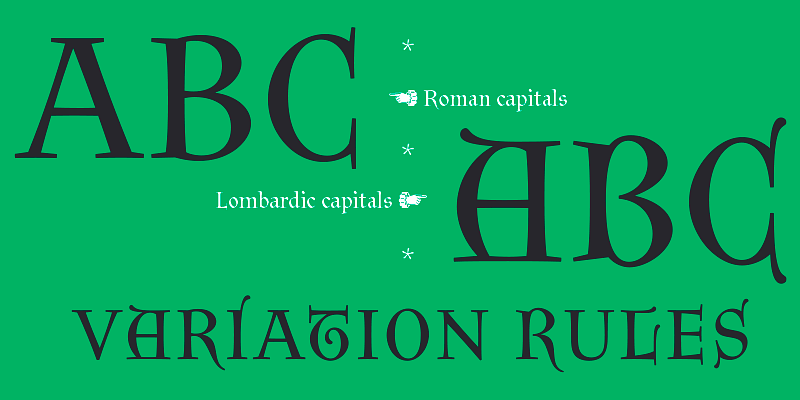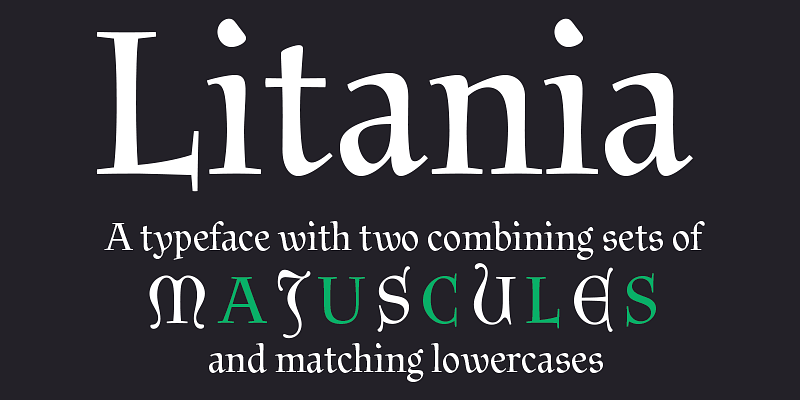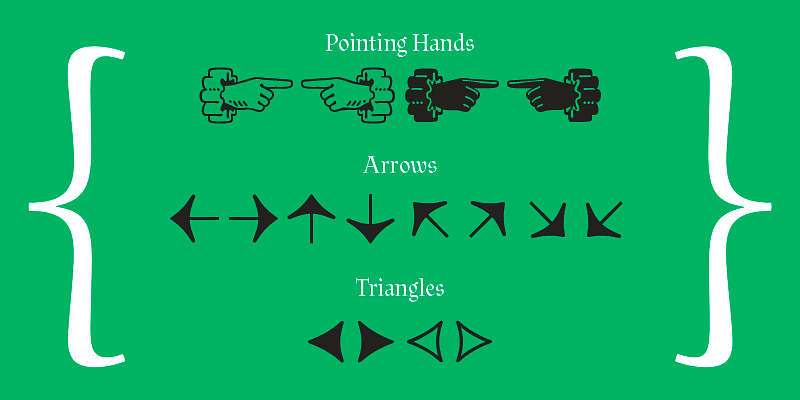
Litania was inspired by a transitional form of Carolingian minuscules. It has two mixable and interchangeable sets of uppercase letters, Roman and Lombardic Capitals.